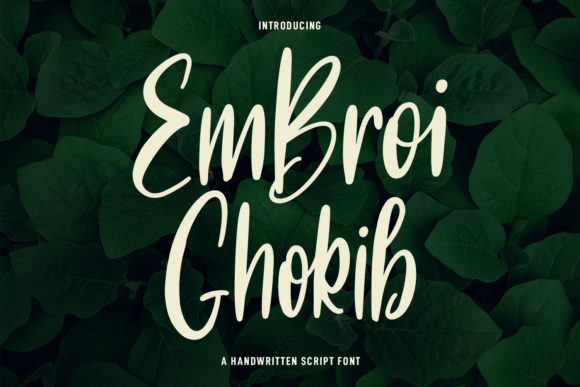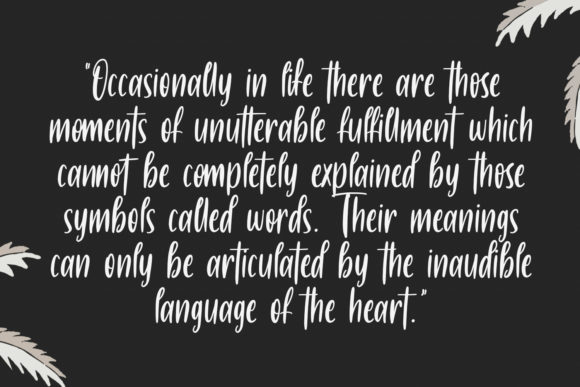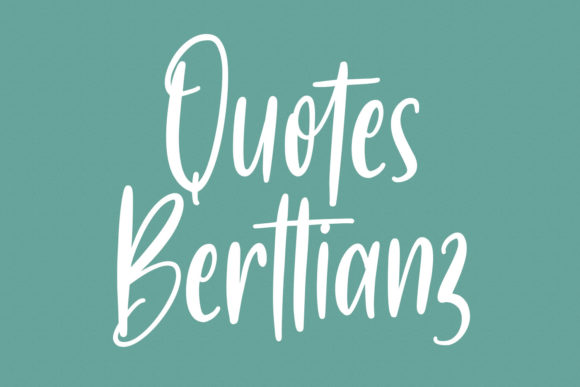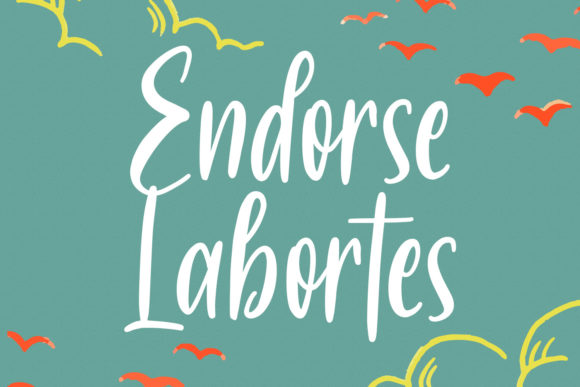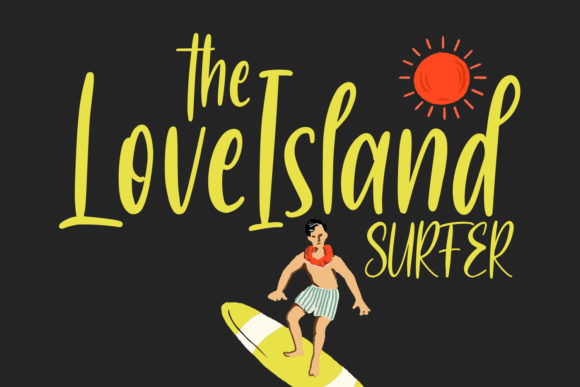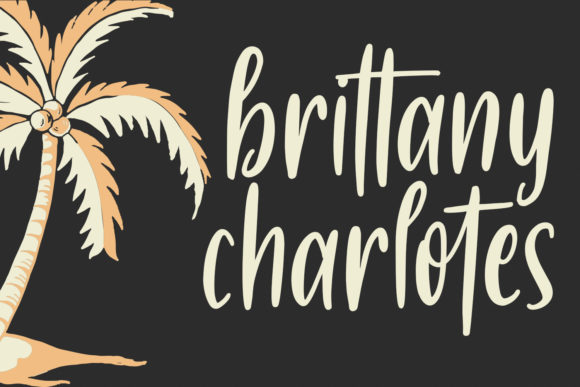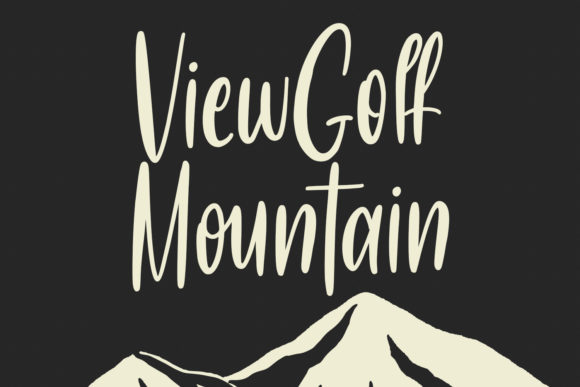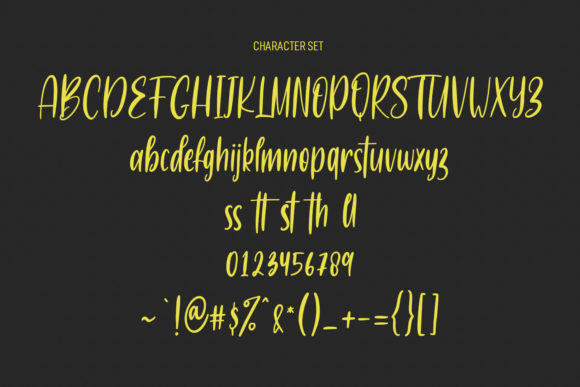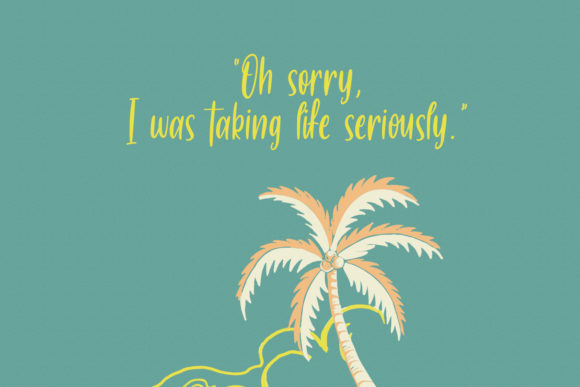
Embroi Ghokib Font
Embroi Ghokib is a sophisticated and artistic script font that effortlessly combines medium contrast strokes with playful characters, ligatures, and alternates. The font’s unique design showcases a harmonious balance between elegance and fun, making it an excellent choice for a variety of creative projects.
The medium contrast strokes in Embroi Ghokib give the font a sense of dynamic movement and visual interest. Each character is carefully crafted with precision, resulting in clean and well-defined shapes that are pleasing to the eye. This attention to detail ensures that Embroi Ghokib maintains a modern and contemporary appearance, making it suitable for a wide range of design applications.
The font’s fun and playful characters add a touch of whimsy and personality to your designs. Whether you’re creating invitations, greeting cards, or social media graphics, Embroi Ghokib’s lively characters inject a sense of joy and creativity that resonates with viewers. Its versatility allows it to adapt seamlessly to different design contexts, making it an ideal choice for projects that require a touch of uniqueness.
Ligatures and alternates further enhance Embroi Ghokib’s charm and flexibility. These special characters provide additional design options, allowing you to create custom combinations and add visual variety to your text. Whether you’re experimenting with ligatures to create flowing connections between letters or exploring alternates to add a touch of flair, Embroi Ghokib offers endless creative possibilities.
The contemporary shape of each character in Embroi Ghokib ensures that the font remains relevant and engaging in modern design trends. Whether you’re using it for branding, packaging, posters, or any other creative project, Embroi Ghokib’s clean and stylish appearance makes a lasting impression.
In summary, Embroi Ghokib is a fancy script font that effortlessly marries medium contrast strokes, playful characters, ligatures, and alternates. Its clean and contemporary design makes it a versatile choice for a wide range of projects, from invitations and cards to branding and beyond. With Embroi Ghokib as part of your font collection, you have a powerful tool to add sophistication, creativity, and a touch of fun to your designs.